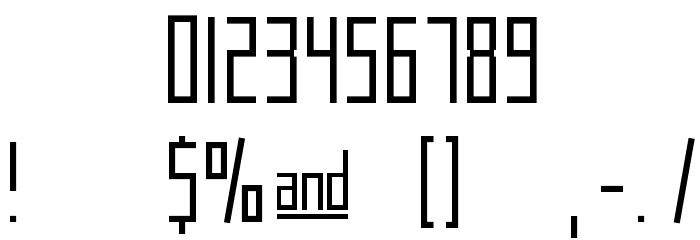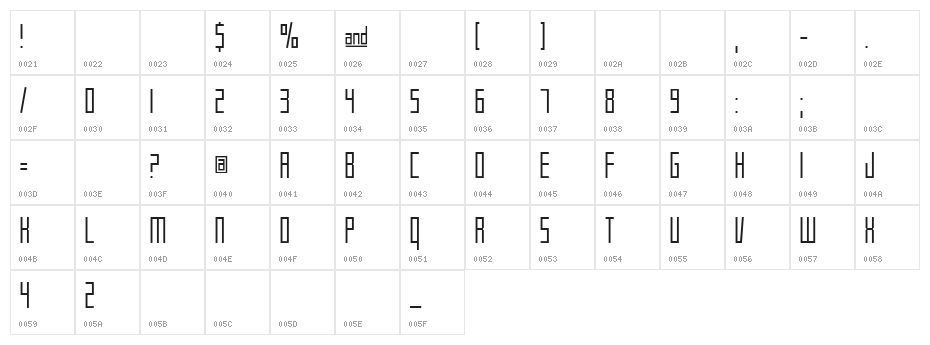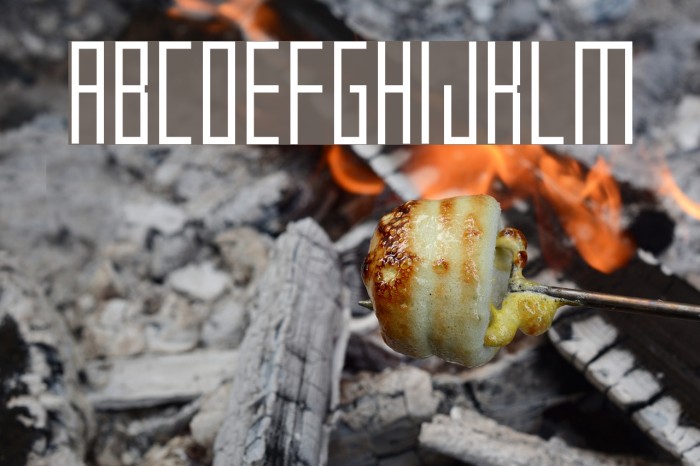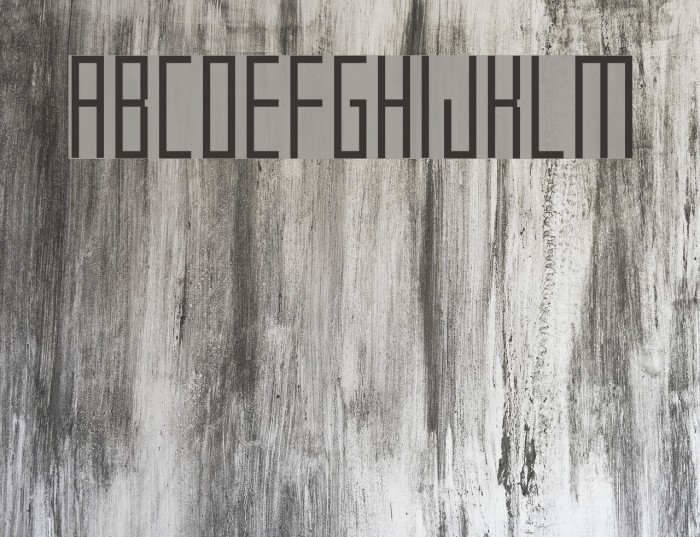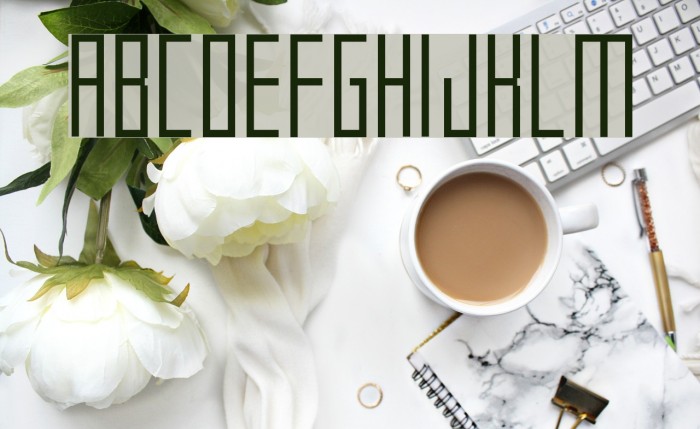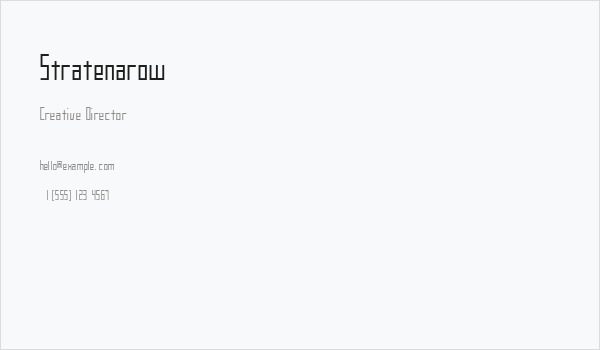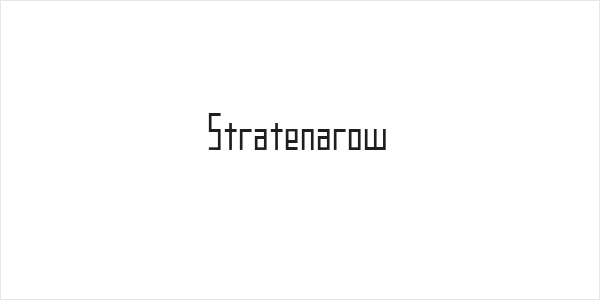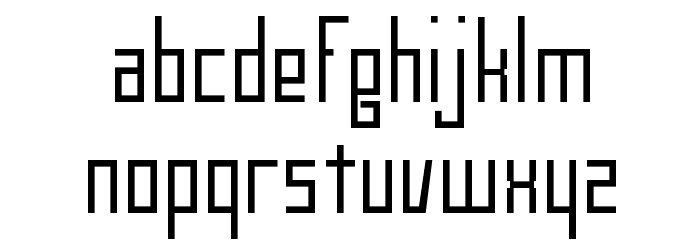
Stratenarow Font
Stratenarow Description
This font features a geometric and modern design with a monospaced structure. Each character is uniformly spaced, giving it a clean and organized appearance. The uppercase and lowercase letters maintain a consistent height, contributing to its orderly aesthetic. The font's straight lines and right angles create a technical and futuristic feel, making it suitable for digital and tech-oriented projects. The numerals and special characters are designed with the same precision, ensuring readability and uniformity across all text. Its minimalist style is both functional and visually appealing, ideal for conveying information clearly and efficiently.
| Use Case | Coding, Technical documentation, Digital interfaces |
| Proposed Projects | Ideal for coding environments, technical documentation, digital interfaces, and futuristic branding. |